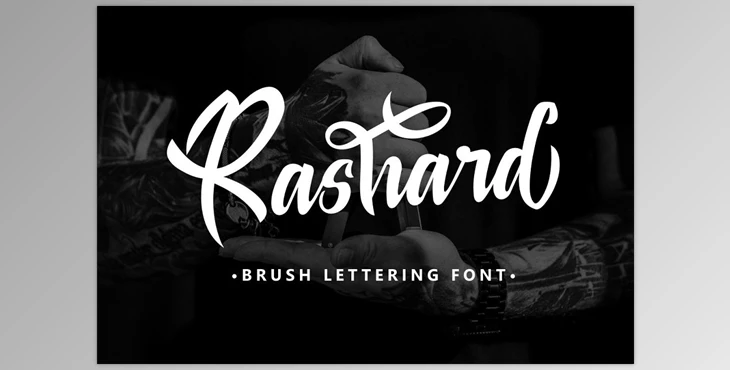
Rashard – Brush Lettering Font:
Rashard is a pen-and-paper font. Created by writing the initial characters on paper, then scanning. Then you can polish each character until they appear in a natural font. As if they were handwritten.
The characters that were not included in the alternative set were divided into a variety of Open Type features such as Swash, Stylistic Sets, Stylistic Alternates and Contextual Alternates, and Ligature. These Open Type features can be used with Open Types savvy programs such as Adobe Illustrator, Adobe InDesign, and Adobe Photoshop. Corel Draw X version, and Microsoft Word. This font can also be used to support multi-language.
Includes the following features :
- Uppercase
- Lowercase
- Opentype (Alternates And Ligatures)
- Number, Punctuation, and Symbols
- Multilanguage Support.